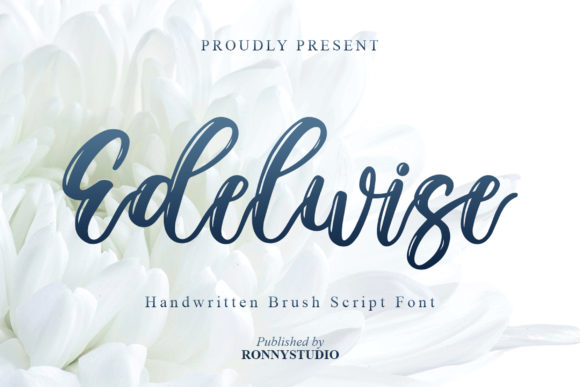
Behold the captivating charm of Edelwise Script Font, a calligraphic masterpiece that oozes elegance and sophistication. This handwritten font, crafted with meticulous care by the esteemed Ronny Studio, is an exquisite choice for those seeking to create a lasting impression through branding, logos, and captivating social media posts.
Immerse yourself in the beauty of Edelwise Script's flowing characters and intricate swashes. Each letter dances across the page with grace and fluidity, evoking a sense of timelessness and allure. Watch as your words transform into works of art, captivating your audience and leaving an indelible mark on their minds.
With Edelwise Script Font, you have the power to craft logos that radiate professionalism and distinction. Its elegant curves and delicate details will elevate your brand to new heights, making it instantly recognizable and memorable. Unleash your creativity and design logos that speak volumes about your brand's identity and values.
Harness the allure of Edelwise Script to create social media posts that captivate and engage your audience. Its enchanting style will draw eyes to your content, making every post a feast for the senses. Whether you're sharing inspiring quotes, promoting your latest products, or simply connecting with your followers, Edelwise Script will add a touch of magic to your words.
The versatility of Edelweise Script Font extends beyond branding and social media. Its delicate strokes and enchanting details make it the perfect choice for creating wedding invitations, decorations, and personalized quotes that exude romance and charm. Imagine your wedding vows written in the graceful curves of Edelwise Script, or a heartfelt message to a loved one adorned with its elegant flourishes. Every word will carry a sense of love and devotion, making your sentiments truly unforgettable.
With Edelwise Script Font at your fingertips, you can effortlessly transform your creative visions into reality. Its PUA encoding ensures seamless access to all glyphs and swashes, making it a breeze to add intricate details and flourishes to your designs. Unleash your imagination and create designs that speak to your heart and soul.